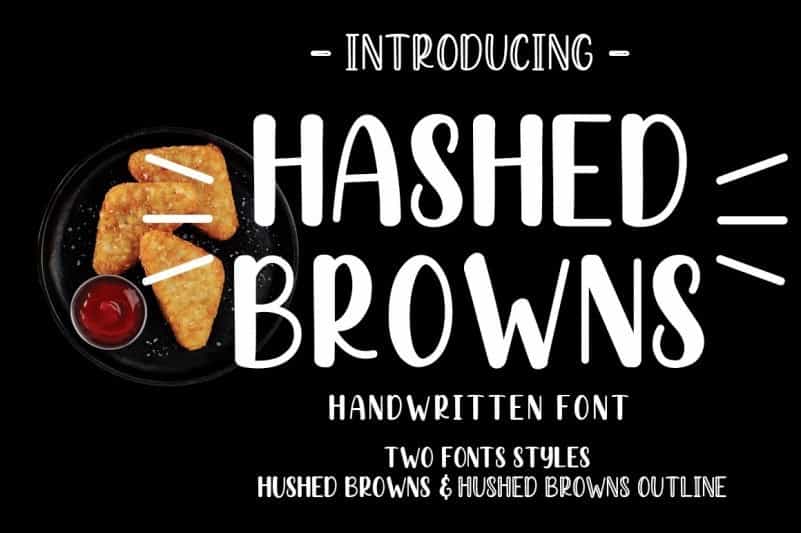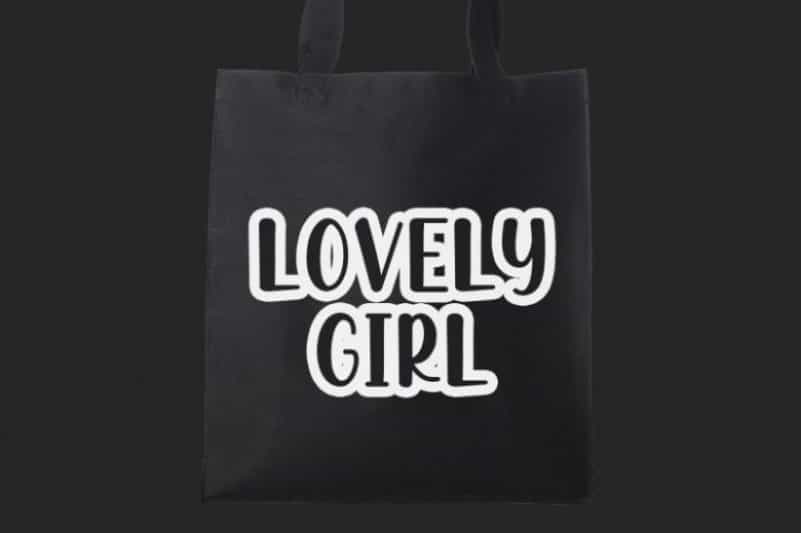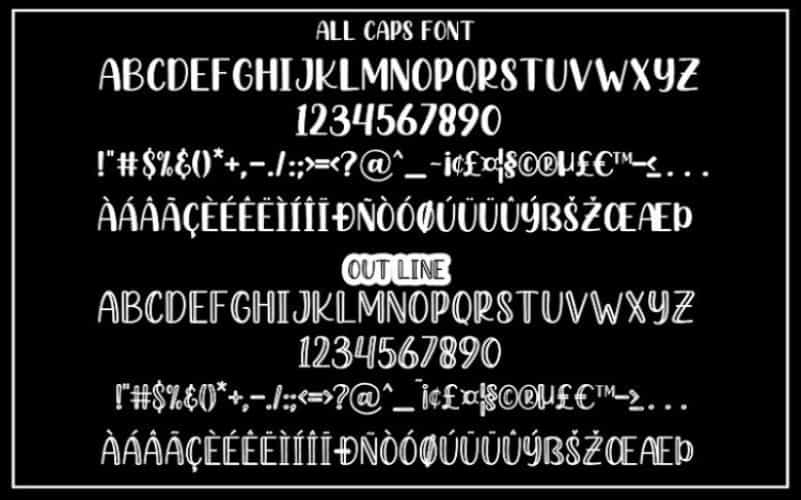
The Hashed Browns Font Based on an elegant handmade sans typeface, it can enhance your design to be appealing, cute, and vibrant. This font is great for mugs, shirts signage, children’s designs as well as headings, blogs logos, brandings, invitations and much more!